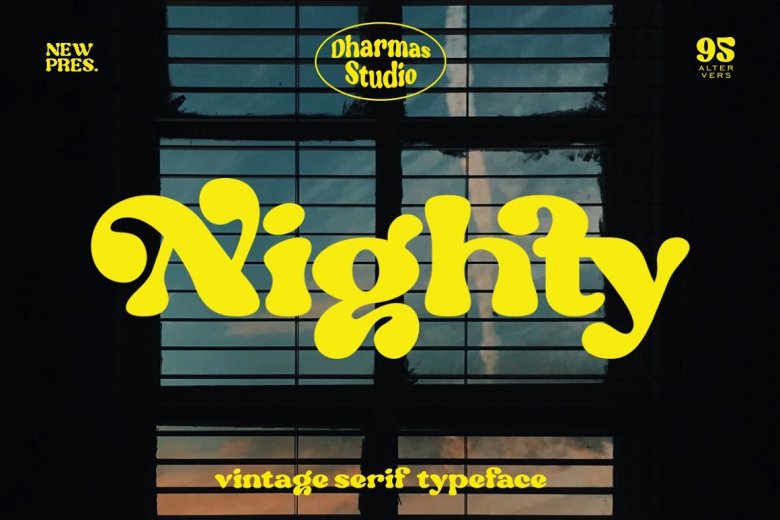
Nighty Font
Nighty is a display font created by Dharmas Studio with sharp and beautiful letters that create fonts that are modern, trendy and elegant. It brings back the 70s vibes with groovy, retro and unique typeface
This font fits perfectly into those nostalgic moodboards and vintage logos. It come with 95 unique alternate and ligature that to give your any project to a unique vintage look.
Nighty Display Font